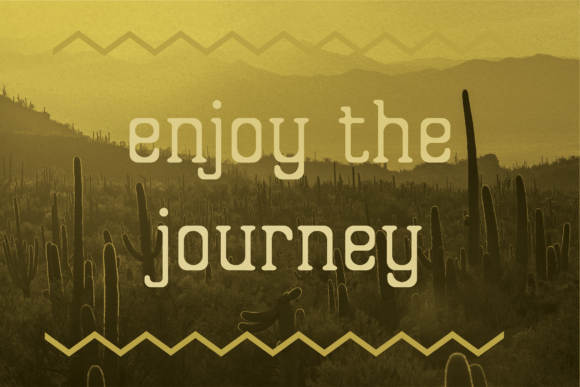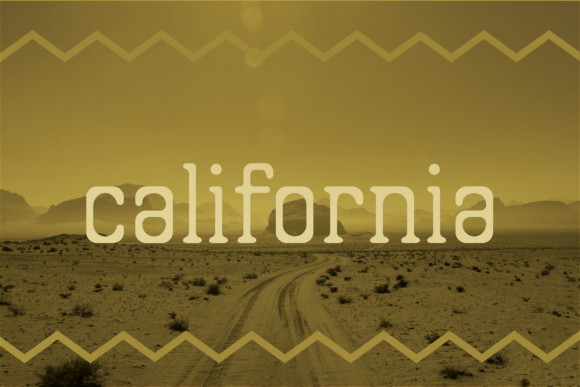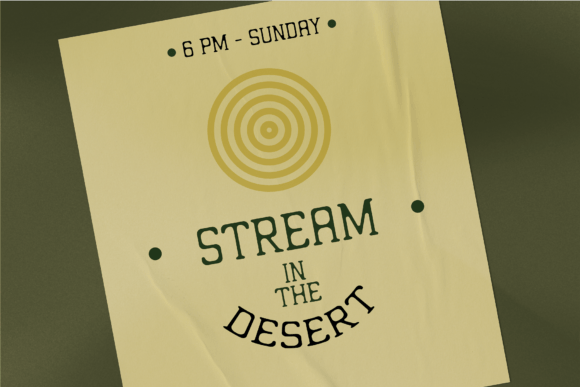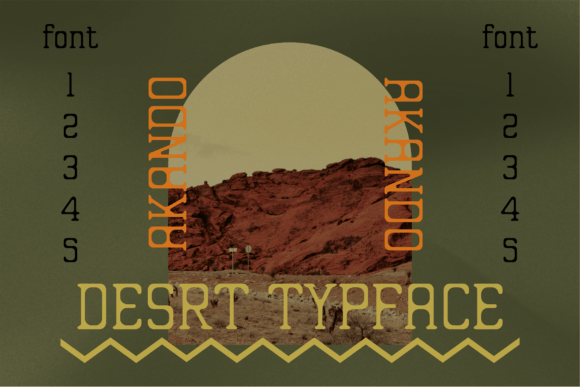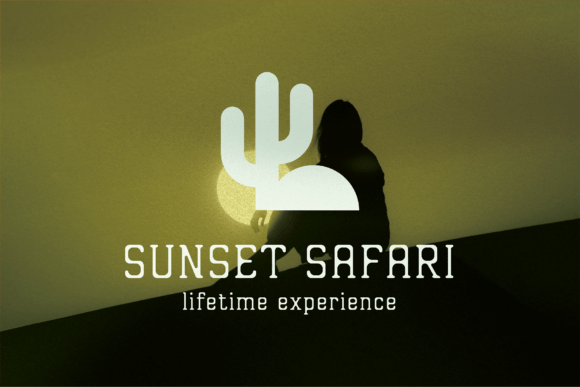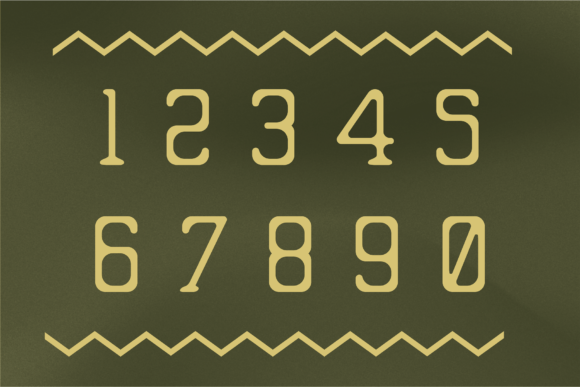
Introducing Akando Font: A Handcrafted Display Typeface Inspired by the American Southwest
Are you a designer or crafter looking for a unique and eye-catching font to elevate your creative projects? Look no further than Akando Font, a handcrafted display typeface inspired by the breathtaking beauty of the American Southwest. This rounded typeface is perfect for a variety of applications, including labels, logos, packaging, clothes, menus, stationery, and more.
The Inspiration Behind Akando Font
Akando Font draws its inspiration from the rugged and majestic landscapes of the American Southwest. The font’s creator was captivated by the region’s unique blend of natural beauty, rich cultural heritage, and architectural styles. From the sweeping desert vistas to the intricate details of Native American pottery, every element of the Southwest’s visual identity has been distilled into Akando Font.
Design Features of Akando Font
Akando Font boasts a distinctive, handcrafted aesthetic that sets it apart from more conventional typefaces. Its rounded edges and smooth curves evoke a sense of warmth and approachability, while its bold lines and sturdy construction ensure excellent legibility. The font’s characters are meticulously crafted to convey a sense of rustic charm and character, making it perfect for designs that require a touch of personality.
Key Benefits of Using Akando Font
• Unique and eye-catching: Akando Font’s distinctive design ensures that your creative projects will stand out from the crowd.
• Versatile: This font is suitable for a wide range of applications, from labels and logos to packaging and stationery.
• Easy to read: Akando Font’s bold lines and clear construction make it easy to read, even at smaller sizes.
• Handcrafted: Each character has been meticulously crafted to convey a sense of rustic charm and character.
Using Akando Font in Your Design Projects
Akando Font is an incredibly versatile typeface that can be used in a variety of creative projects. Here are a few ideas to get you started:
• Labels and packaging: Add a touch of rustic charm to your product labels and packaging with Akando Font.
• Logos and branding: Create a unique and memorable logo for your business or brand using Akando Font.
• Stationery and invitations: Add a personal touch to your stationery, invitations, and greeting cards with Akando Font.
• Clothing and textiles: Use Akando Font to create eye-catching designs for clothing, fabric, and other textiles.
• Menus and signage: Make your menus, signs, and other display materials stand out with Akando Font.
Tips for Getting the Most Out of Akando Font
To get the most out of Akando Font, here are a few tips to keep in mind:
• Experiment with different sizes: Akando Font looks great at a variety of sizes, from small labels to large display signs.
• Play with color: The font’s bold lines and rounded edges look great in a range of colors, from earthy tones to bright and bold hues.
• Combine with other fonts: Akando Font pairs well with a range of other typefaces, so don’t be afraid to experiment with different font combinations.
Akando Font is a unique and versatile typeface that is perfect for designers and crafters looking to add a touch of rustic charm to their creative projects. With its handcrafted aesthetic, bold lines, and smooth curves, this font is sure to make your designs stand out. Whether you’re creating labels, logos, packaging, or stationery, Akando Font is an excellent choice. So why wait? Download Akando Font today and start creating!